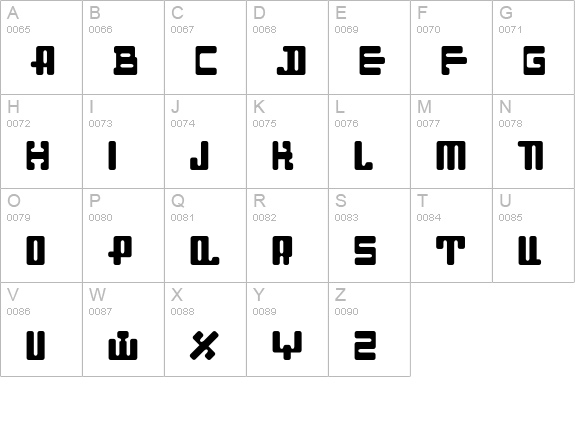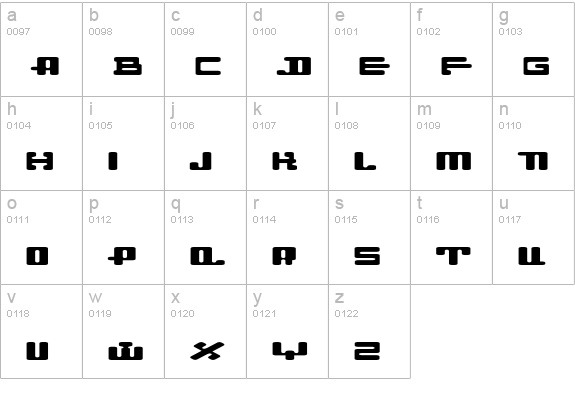
Dahgir-RoundSmCaps Font Details
Dahgir-RoundSmCaps font is a captivating and distinctive typeface that effortlessly combines elegance with a touch of playfulness. This font is the perfect choice for those seeking to add a unique flair to their designs. Its rounded letterforms exude a sense of warmth and friendliness, making it suitable for a wide range of projects. Whether you are designing a logo, creating a poster, or crafting an eye-catching website, Dahgir-RoundSmCaps font will ensure that your text stands out from the crowd. Its smooth curves and balanced proportions create a harmonious visual rhythm, resulting in a visually pleasing and highly legible font. One of the standout features of Dahgir-RoundSmCaps font is that it is available for free download at FontsMarket.com. This means that you can easily access this remarkable typeface and incorporate it into your projects without any cost. The font's availability for free ensures that everyone can enjoy its beauty and versatility, regardless of budget constraints. Dahgir-RoundSmCaps font offers a wide range of uppercase and lowercase characters, as well as numerals and punctuation marks, allowing for endless design possibilities. Its versatility makes it suitable for a variety of design contexts, from branding to editorial design, and everything in between. In conclusion, Dahgir-RoundSmCaps font is a captivating and versatile typeface that combines elegance with a touch of playfulness. Its availability for free download at FontsMarket.com ensures that it is accessible to all designers, regardless of their budget. With its smooth curves, balanced proportions, and wide range of characters, this font is a must-have for any creative project.